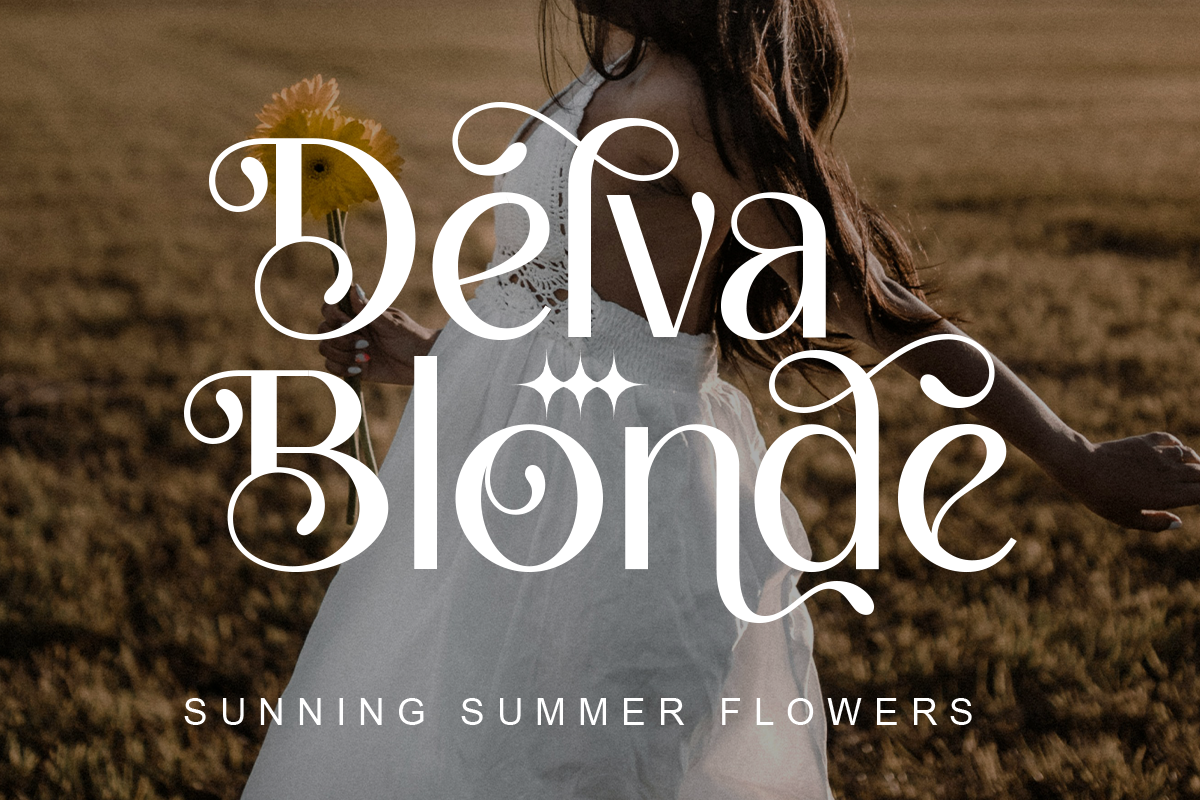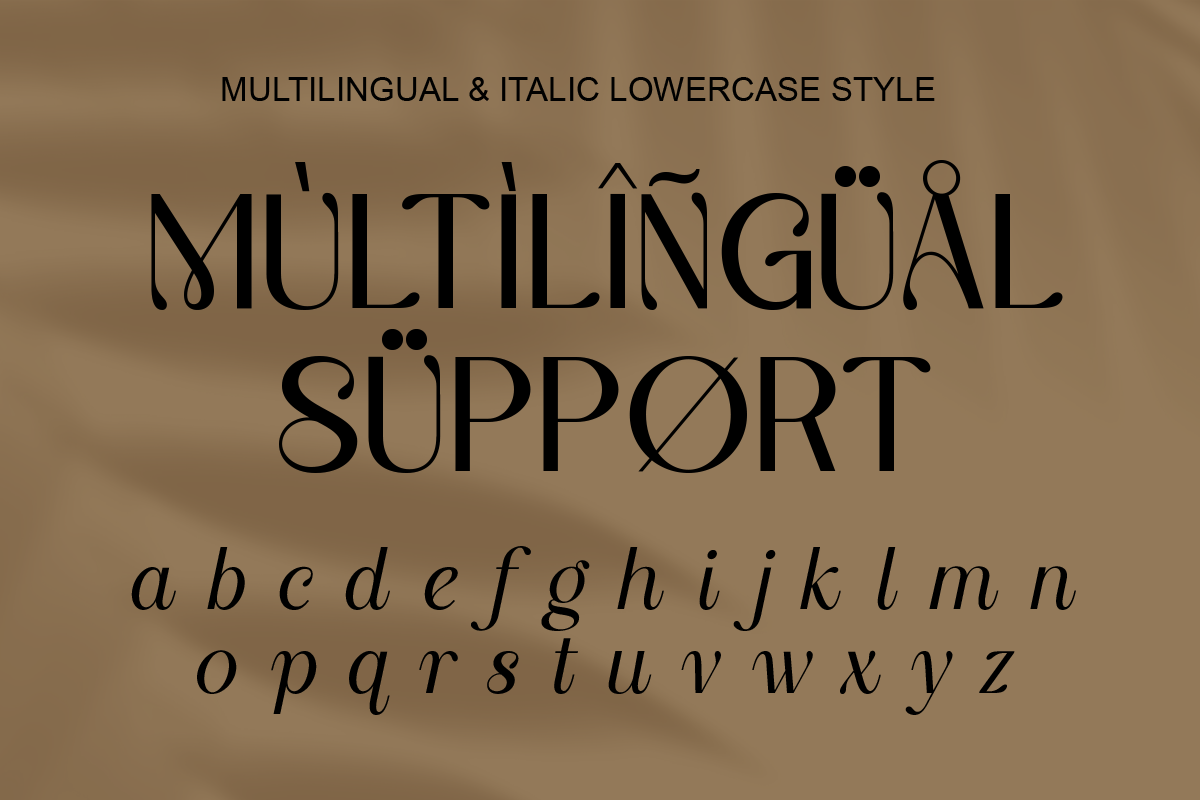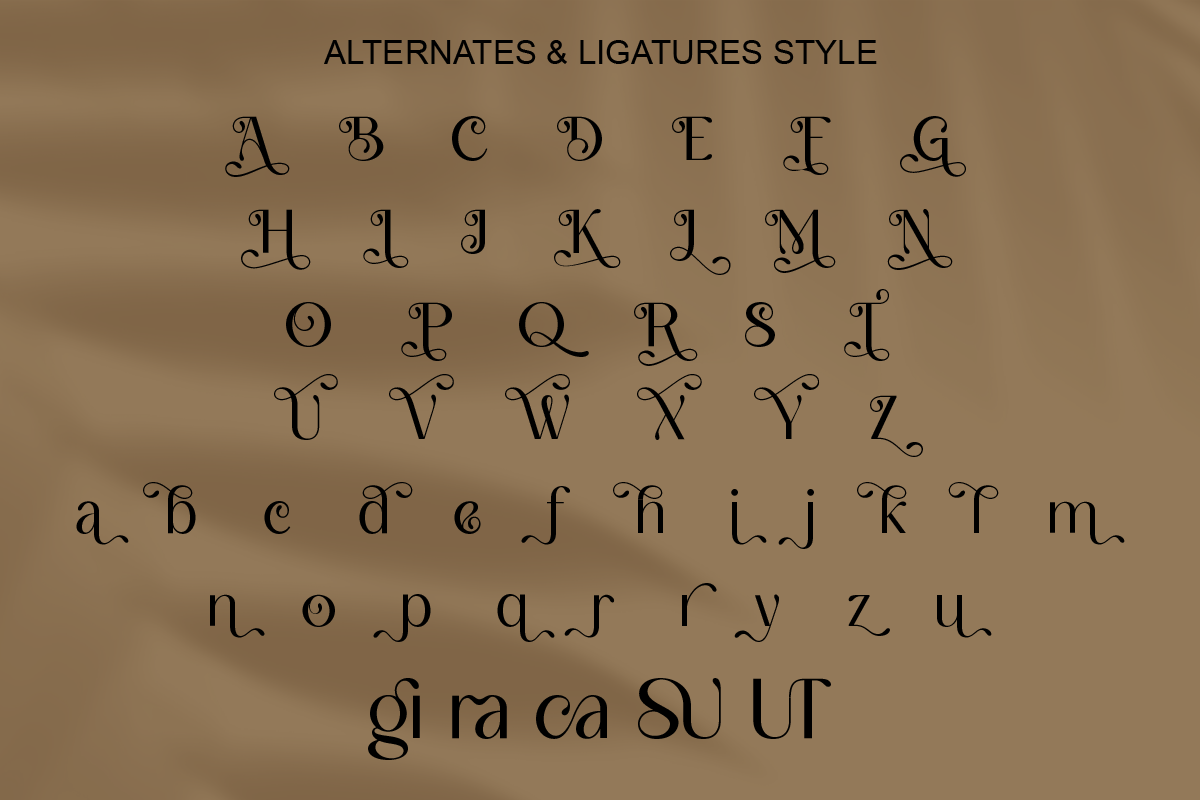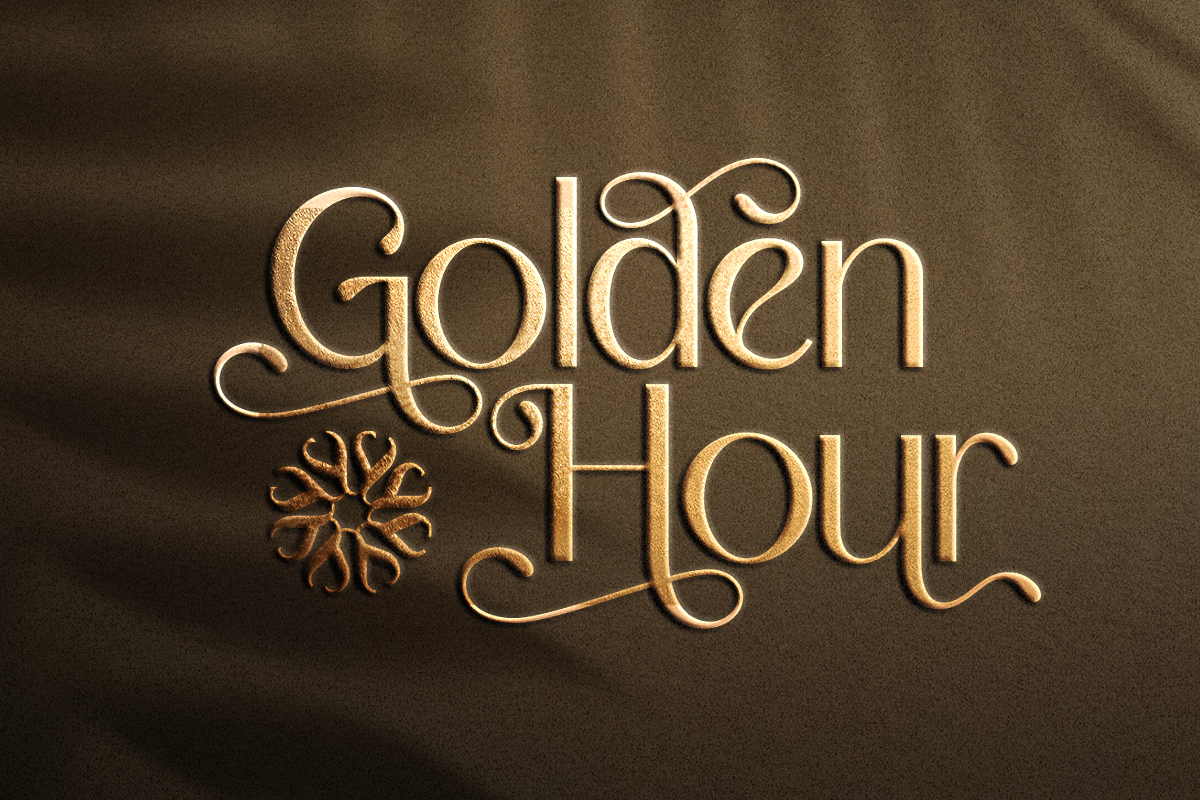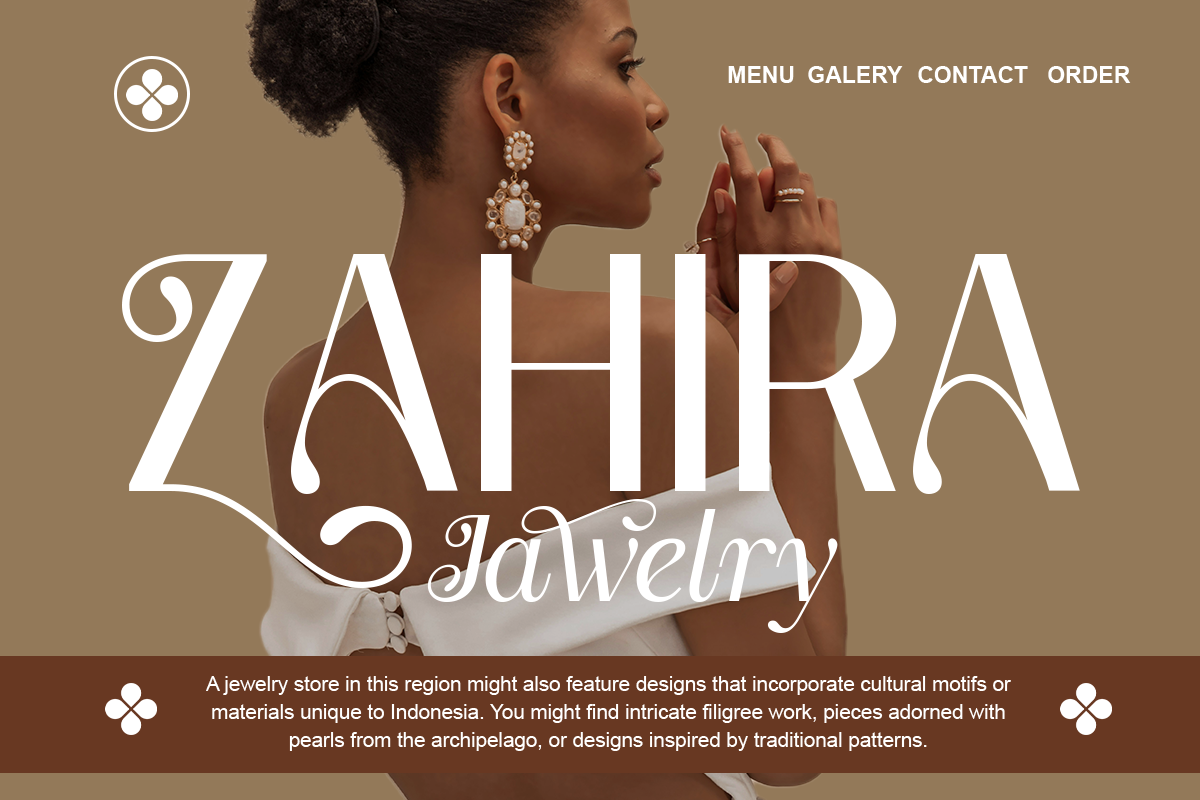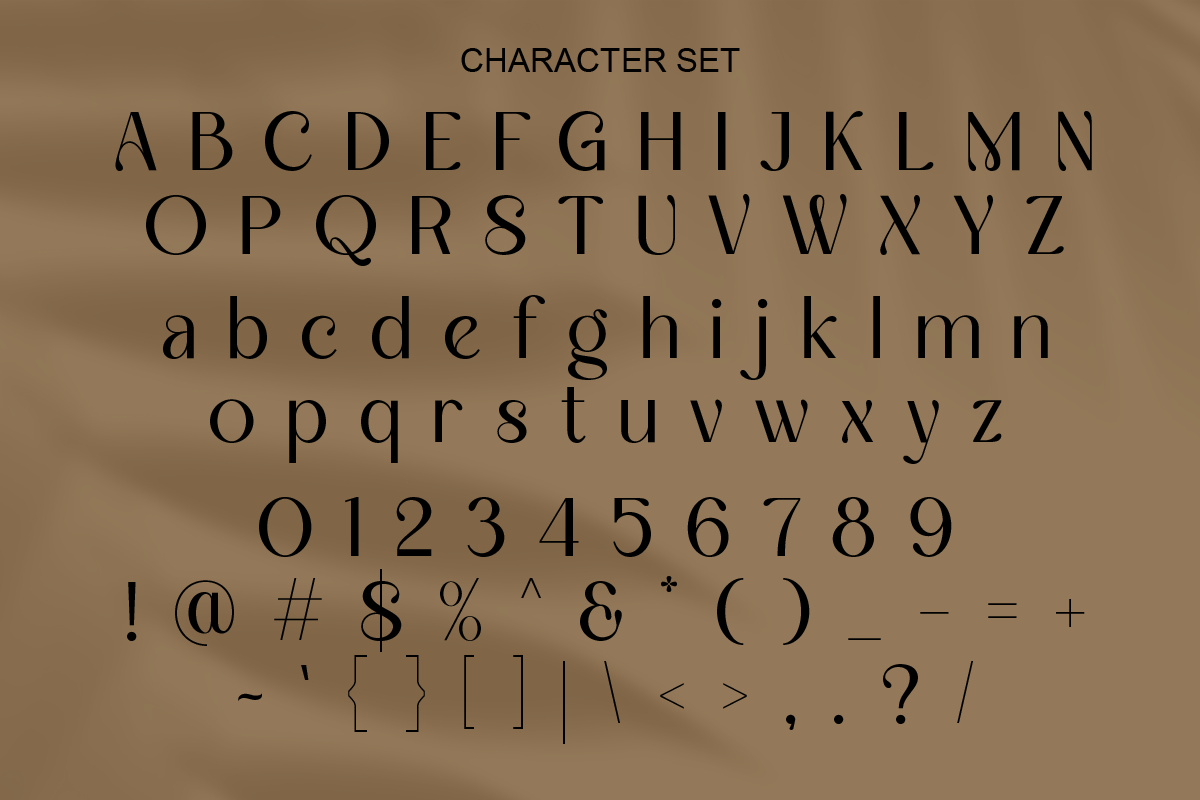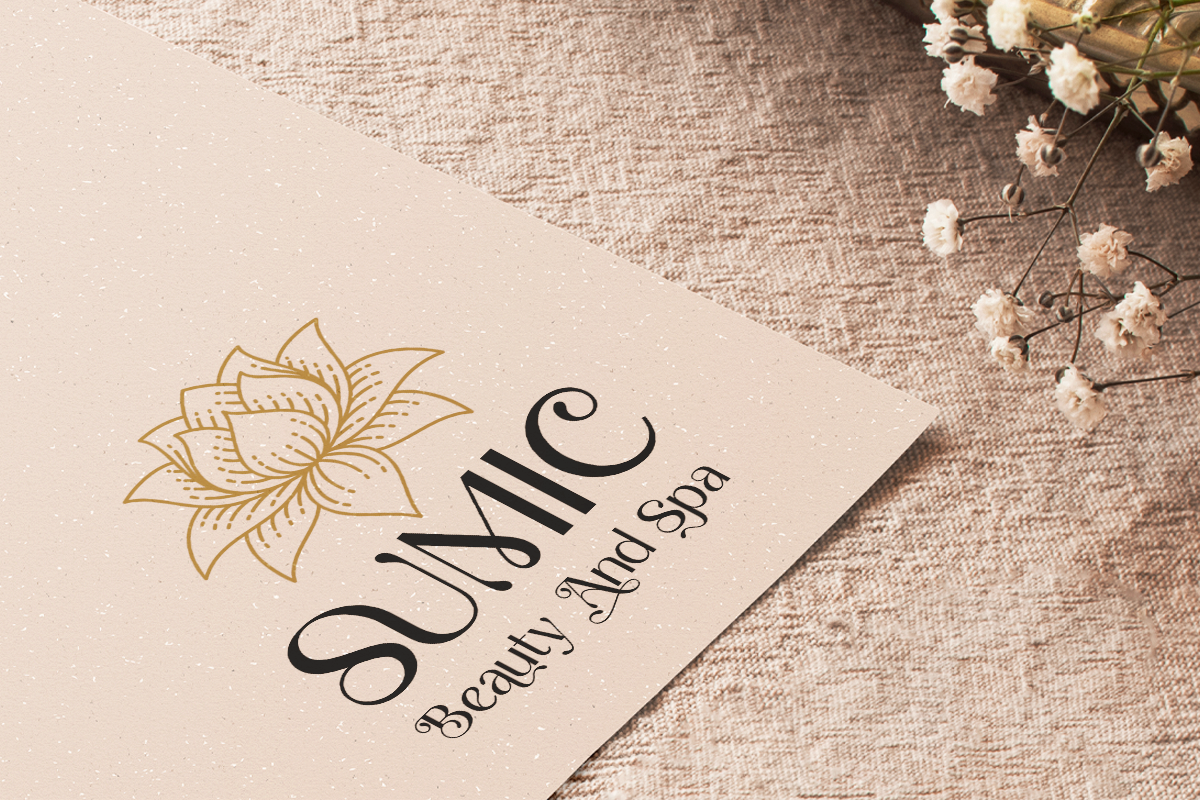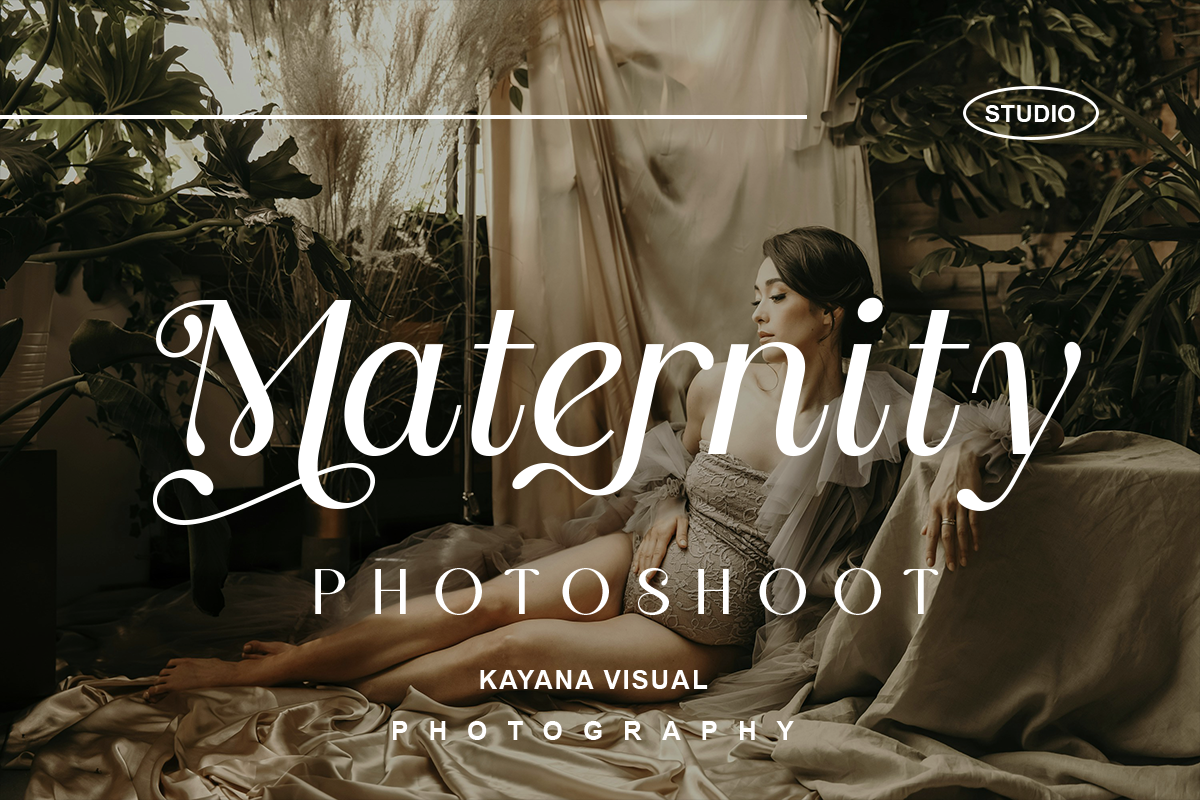
Sparkling Mellow - Elegant Serif
Sparkling Mellow is Elegant Serif font with italic style. its modern and minimalist look, this typeface brings a luxurious, classy, and clean style to your projects such as websites, modern logos, brand identities, social media quotes, wedding stationery, magazines, and more! The subtle swoosh and beauty of Sparkling Mellow will make your work elegant and stand out.
- Stylish Alternates